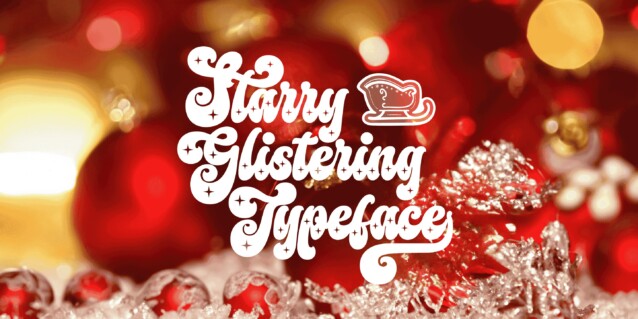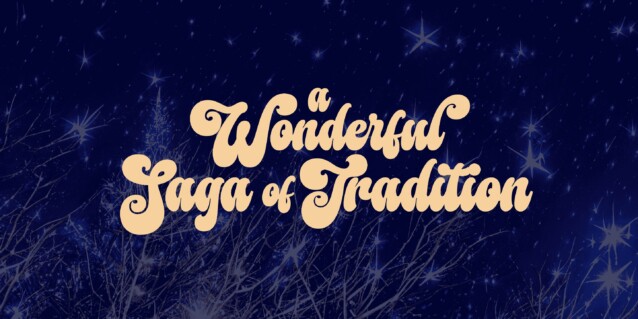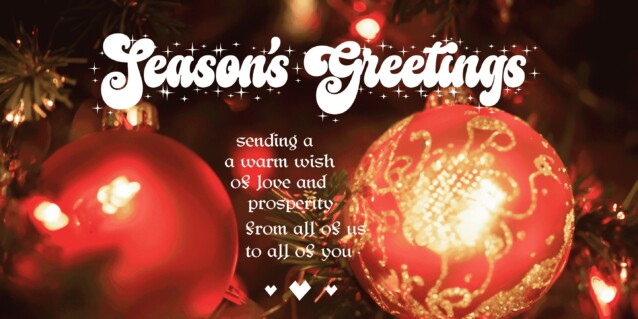
American Christmas Font
American Christmas Font is a retro script typeface with a bold style, inspired by the retro typography designs. As a cozy winter script, it brings a festive touch to every word, with letters that seem to dance joyously across the page. Its bold flow is reminiscent of retro holiday signage, evoking a sense of nostalgia and warmth. This typeface is adorned with stars that twinkle like lights on a tree, adding a sparkle to your seasonal greetings. This typeface family is provided in three starry versions and one clean, and also comes with an extra symbol font for beautiful Xmas icons. It has extensive lingual support, covering all Latin-based languages, from Northern Europe to South Africa, from America to South-East Asia. It contains all characters and symbols you’ll ever need, including all punctuation and numbers.